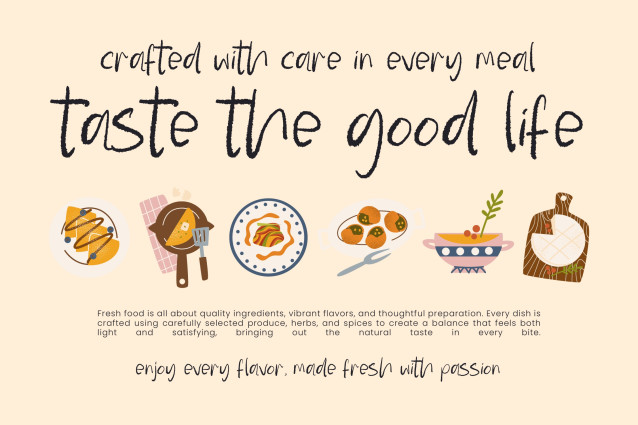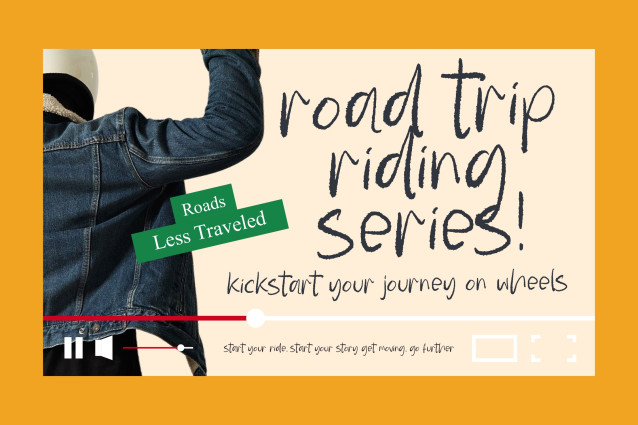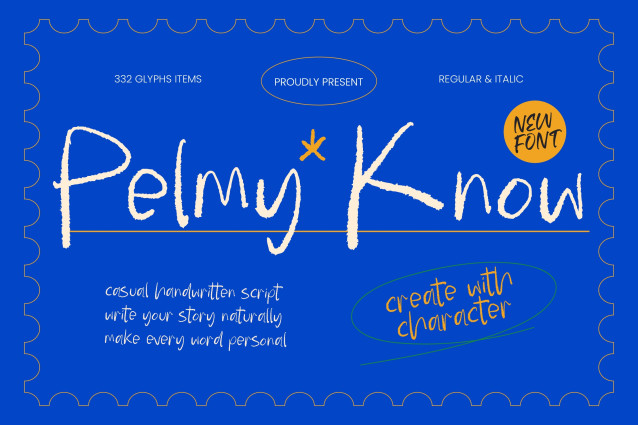
Pelmy Know – Casual Handwritten Script offers an authentic charm characterized by its raw, textured edges and unstudied elegance. This font captures the essence of a personal note, making it the perfect choice for designers seeking to establish a genuine connection with their audience through human-centric design.
Bridge the gap between markets with a toolkit built for the modern, interconnected world. With its extensive multilingual support, Pelmy Know – Casual Handwritten Script adapts seamlessly across global markets, making it incredibly versatile for international projects. Featuring a comprehensive glyph set of over 300 items, this typeface ensures that your message remains visually consistent and impactful regardless of the language or region.
Elevate your creative narrative using a font that prioritizes expressive personality and stylistic flexibility. Available in both regular and italic styles, Pelmy Know – Casual Handwritten Script allows for dynamic layouts that feel both spontaneous and professionally polished. Its hand-drawn aesthetic adds a layer of visual storytelling to any project, turning standard text into a memorable brand experience.
Transform your brand identity into a relatable masterpiece with a typeface that is ideal for diverse applications. Pelmy Know – Casual Handwritten Script is perfect for lifestyle branding, premium packaging, editorial design, and engaging social media graphics where a personal touch is paramount. Whether you are crafting artisanal labels or bespoke invitations, this font provides the commercial edge needed to stand out in a crowded marketplace.